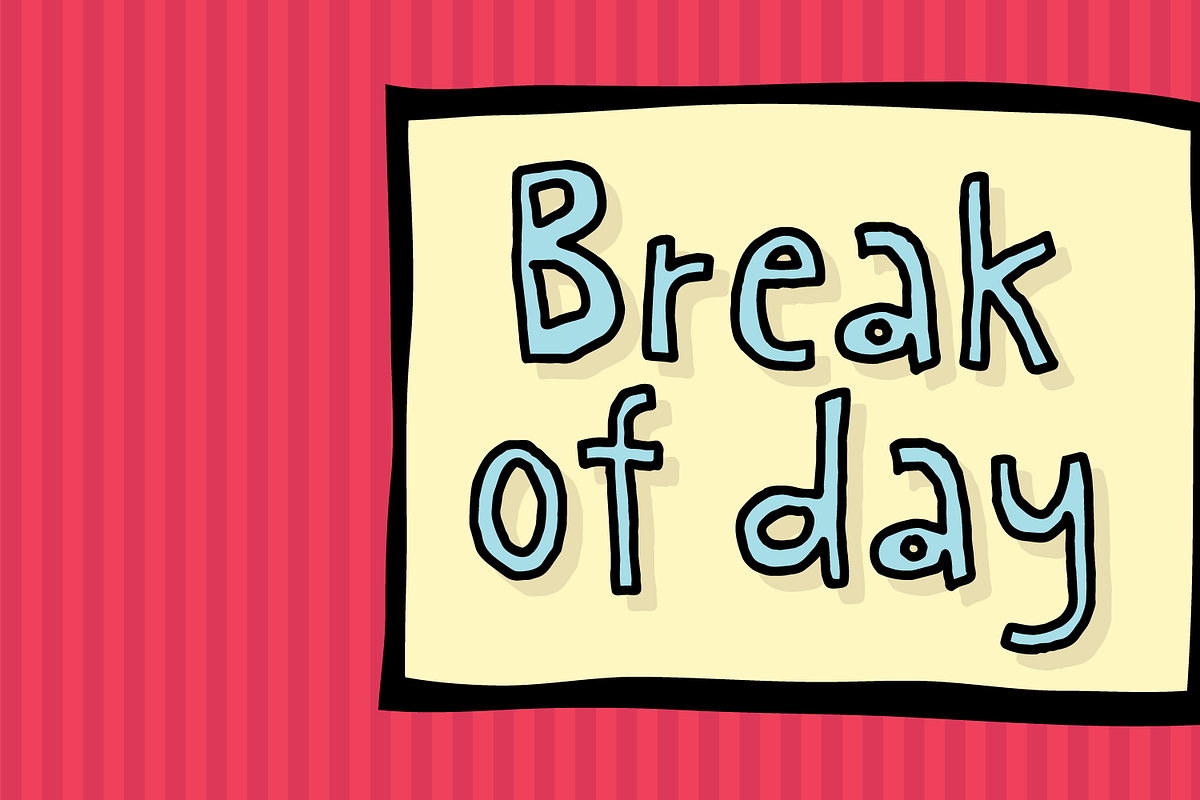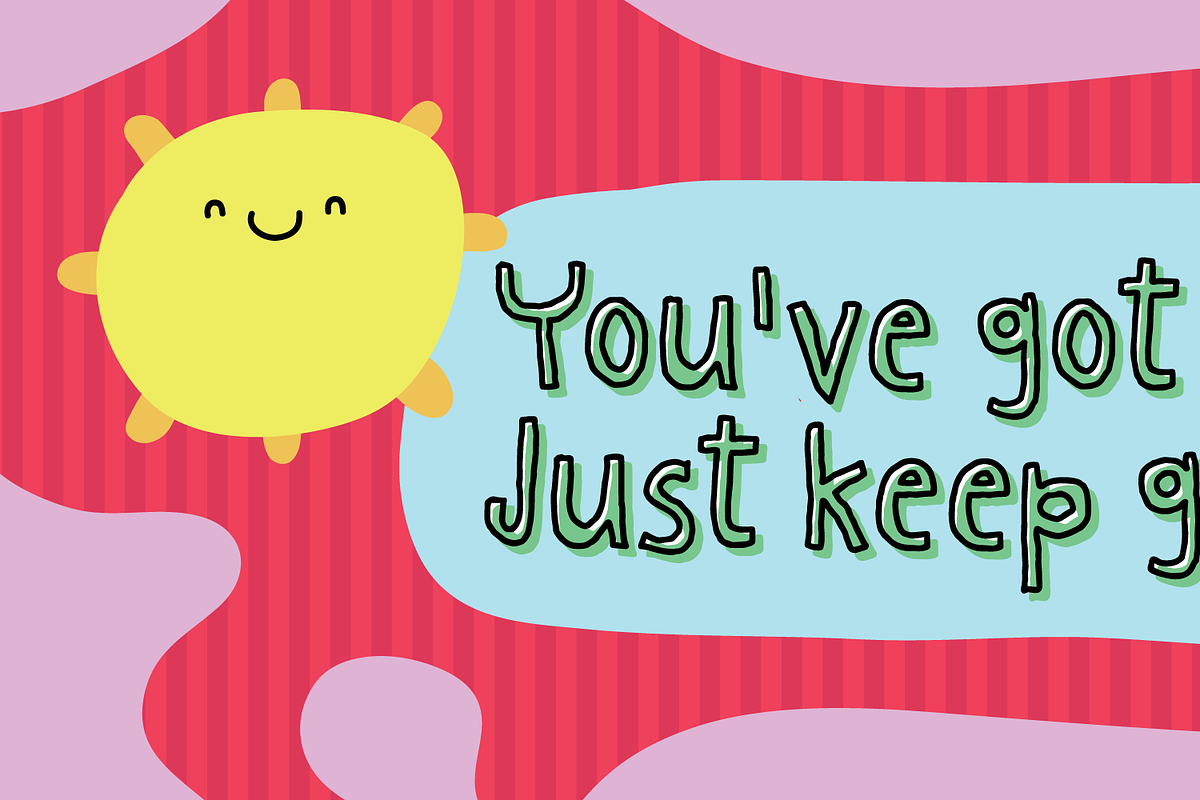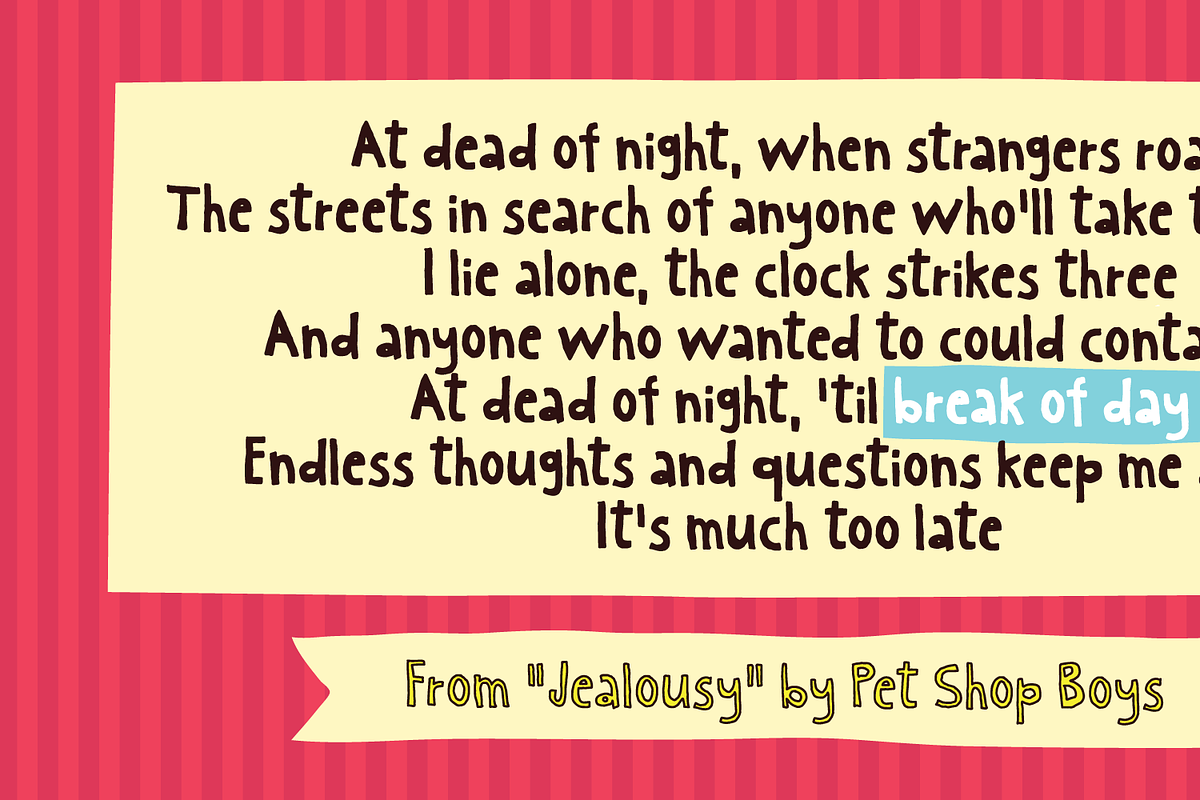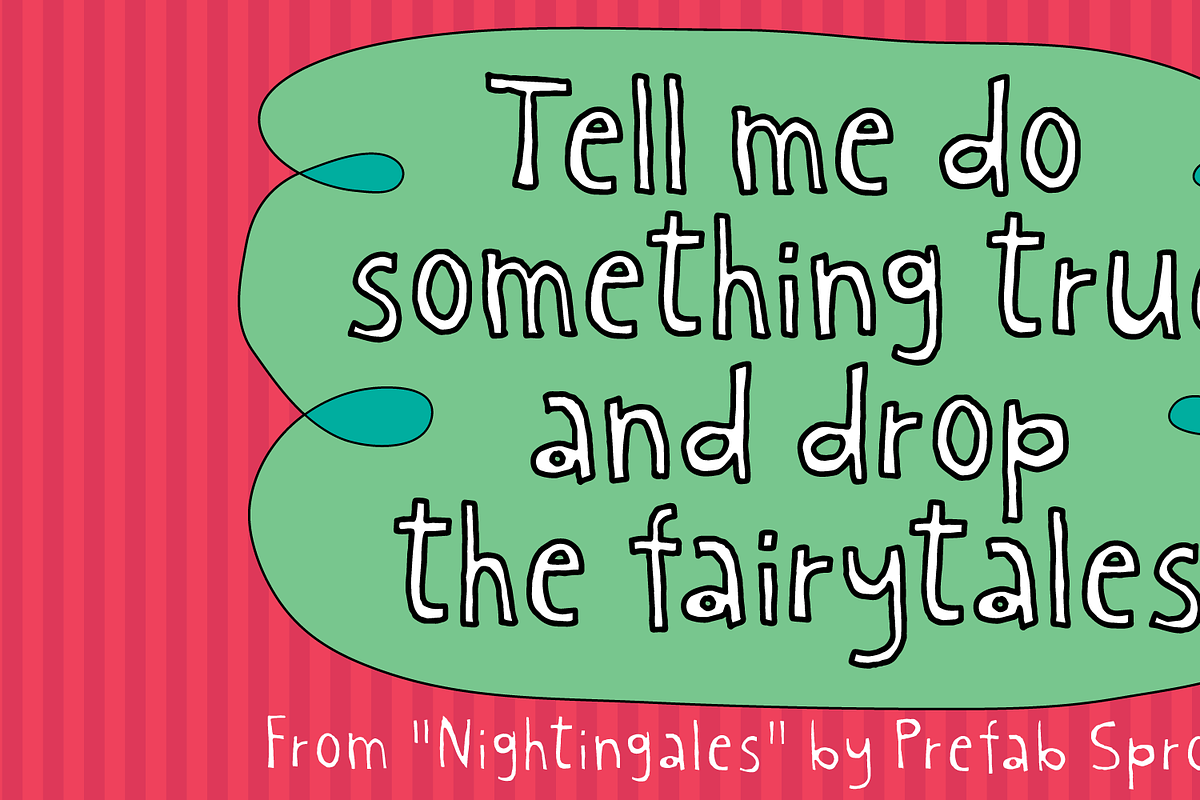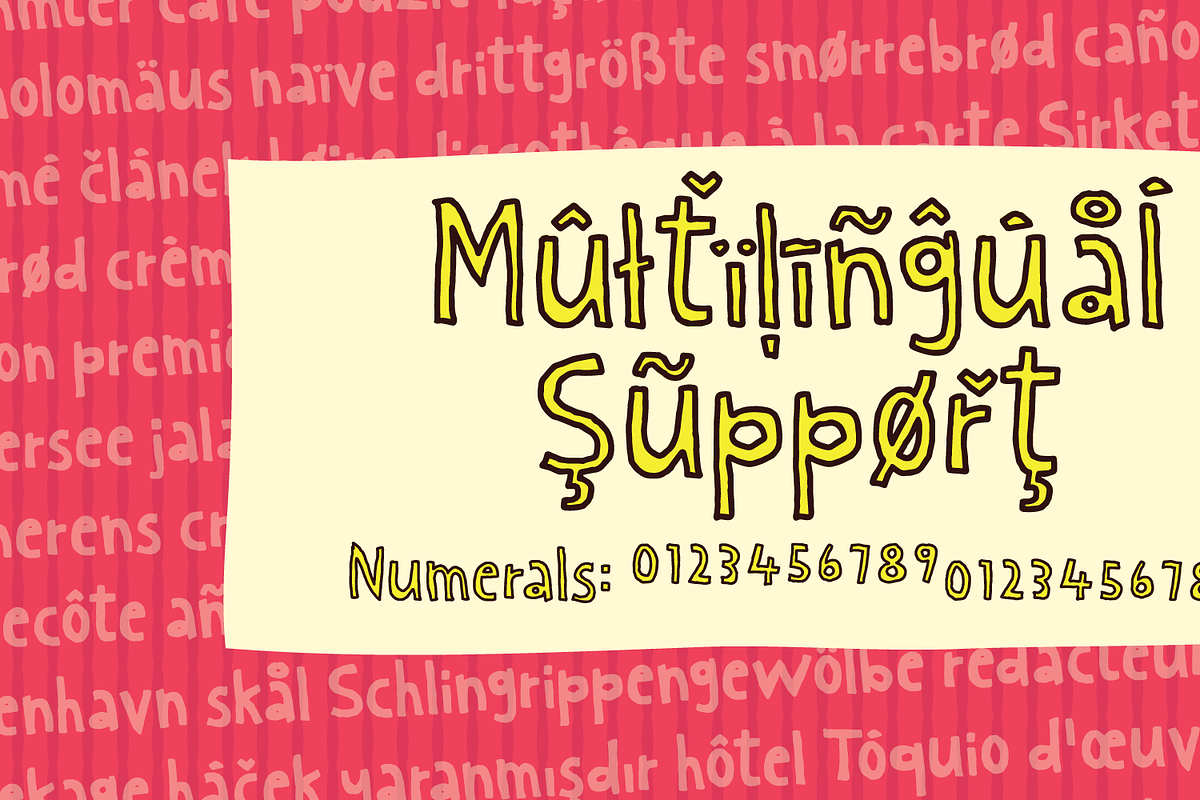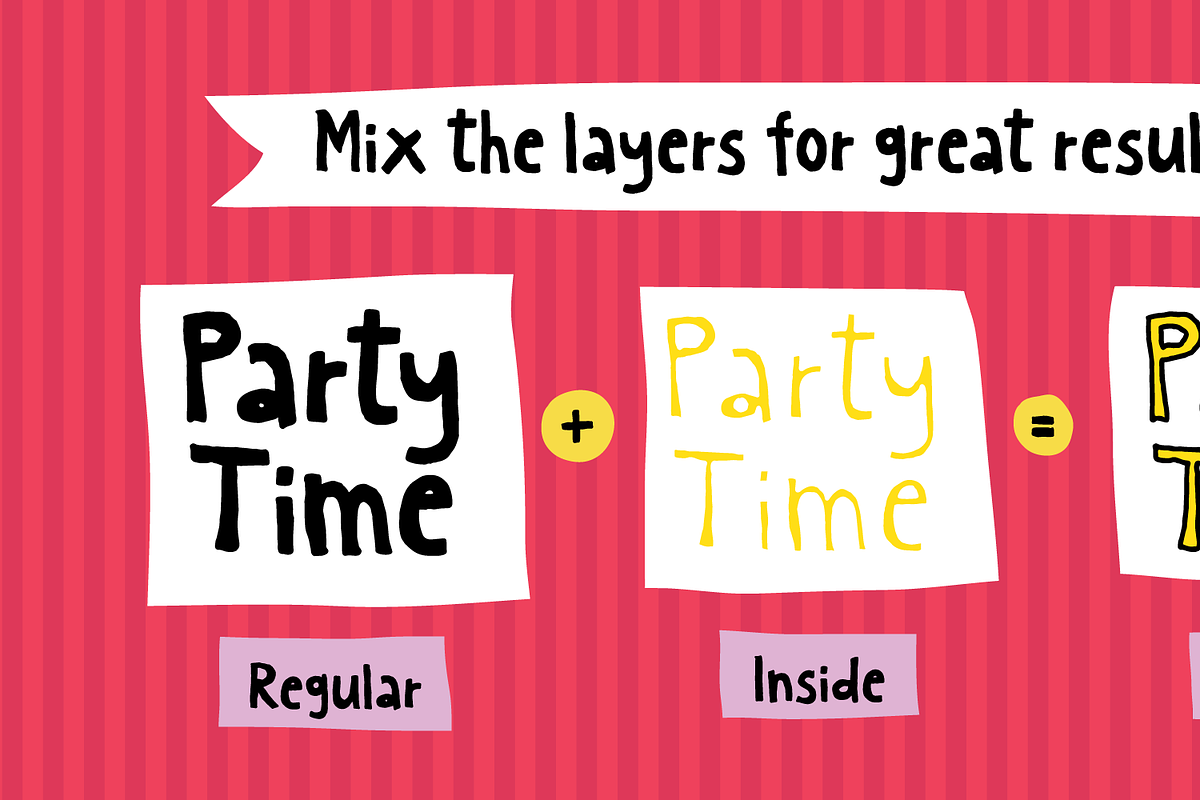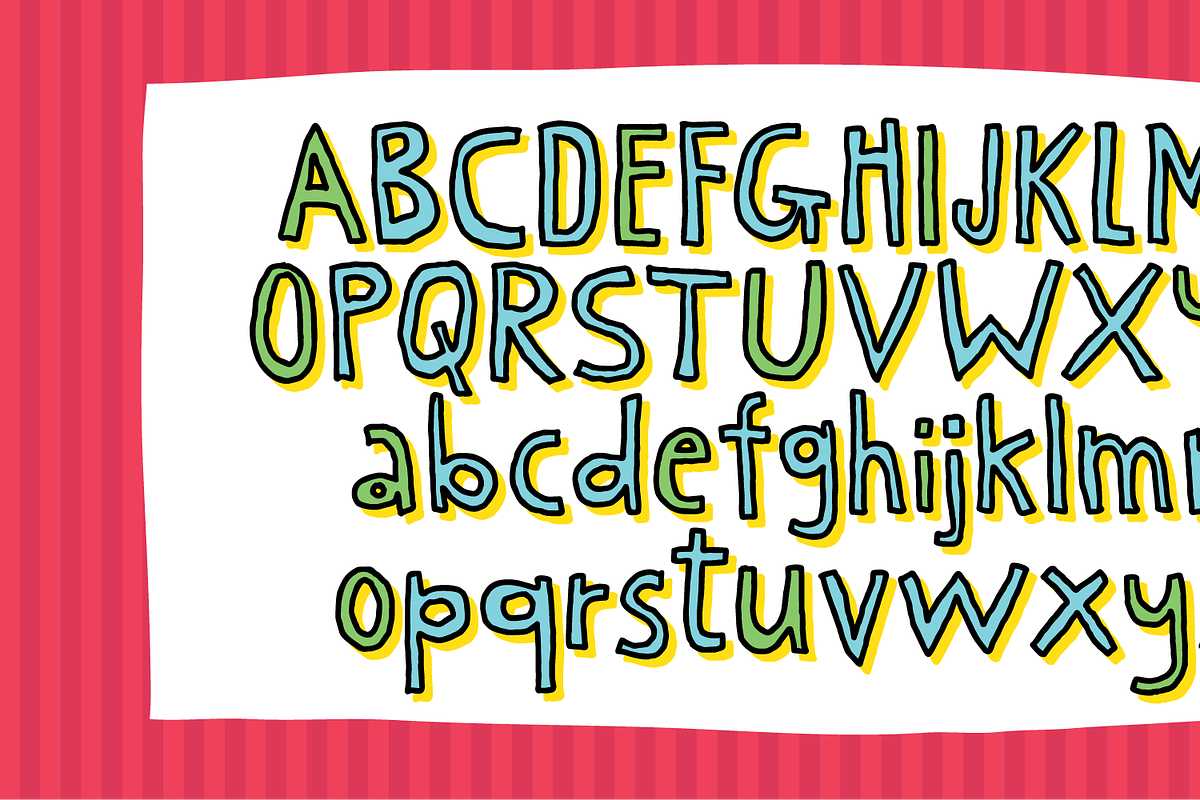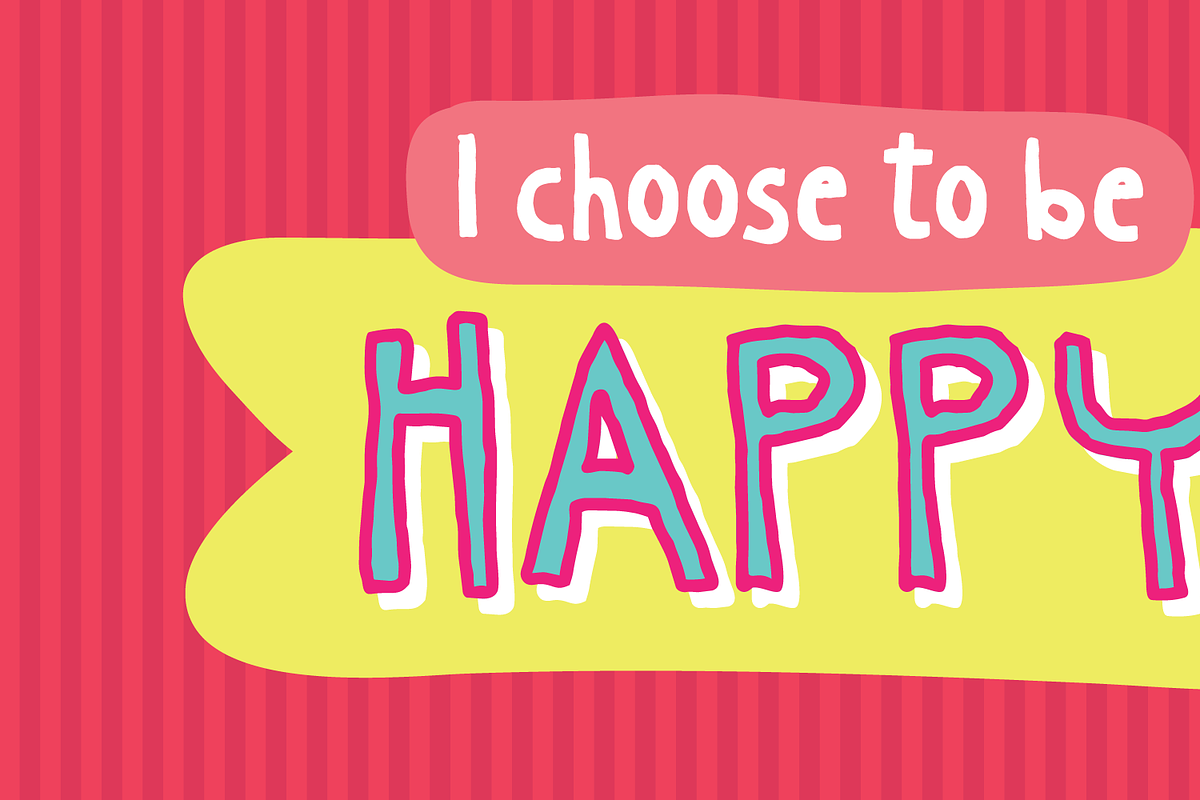
Break of day
Break of day is my playful and organic looking sans font. Suitable for a wide range of things - such as magazine or book covers, packaging, products for organic stuff or even kids products. You may quickly notice the uneven doodle vibe, and a warmth and charm, which makes it an obvious choice for anything that needs a handmade and creative expression. Break of day comes in both Regular, Inside and Outline - mix them for great results!